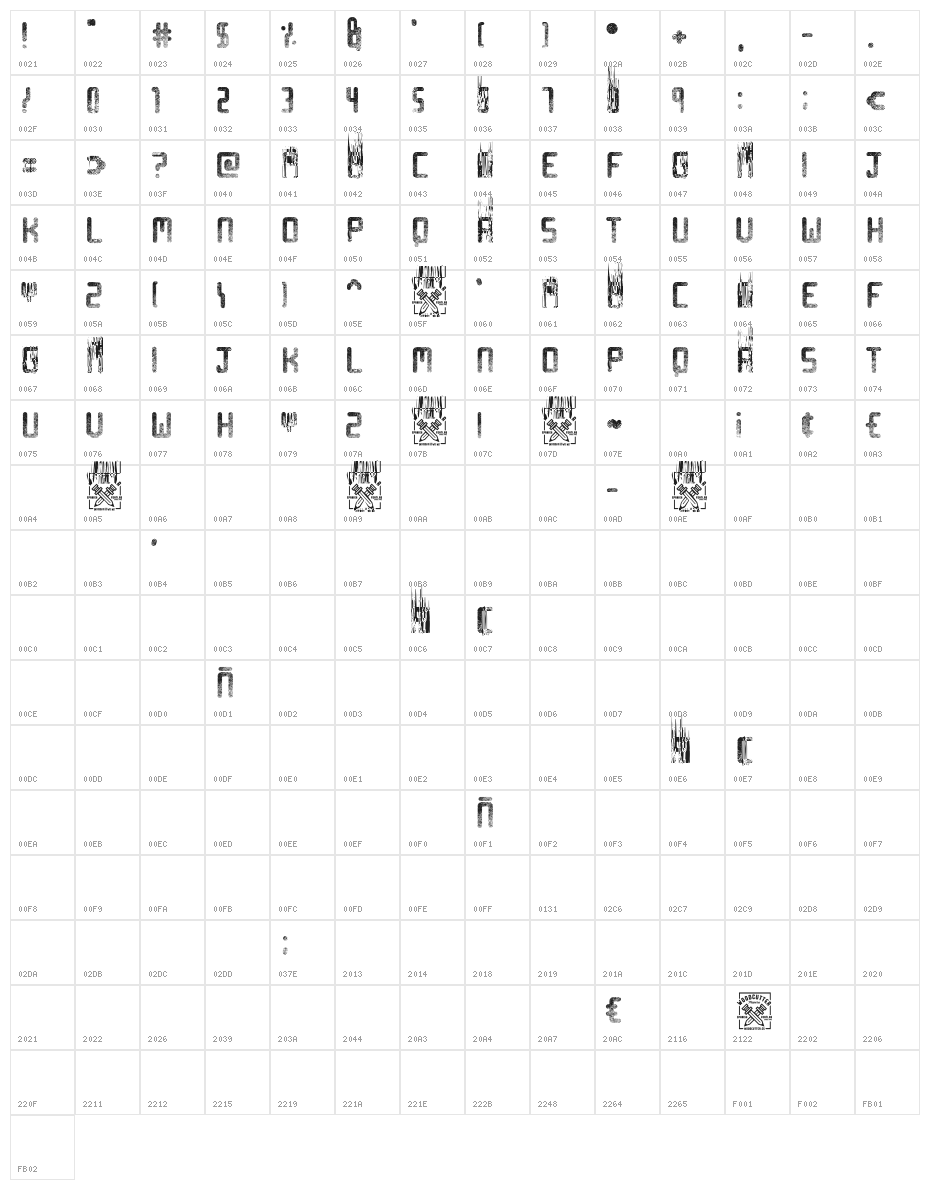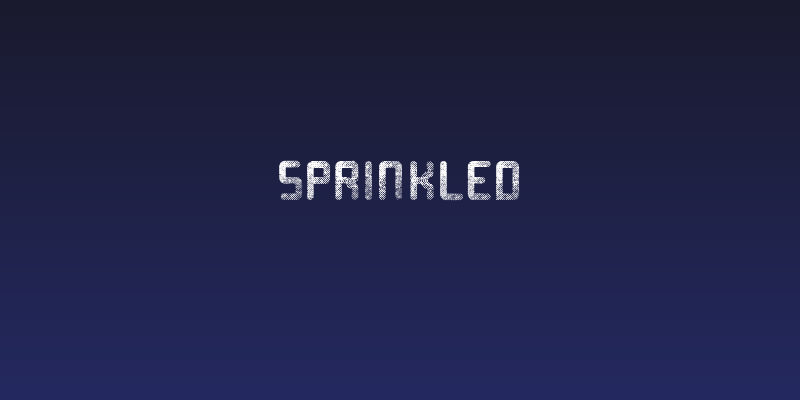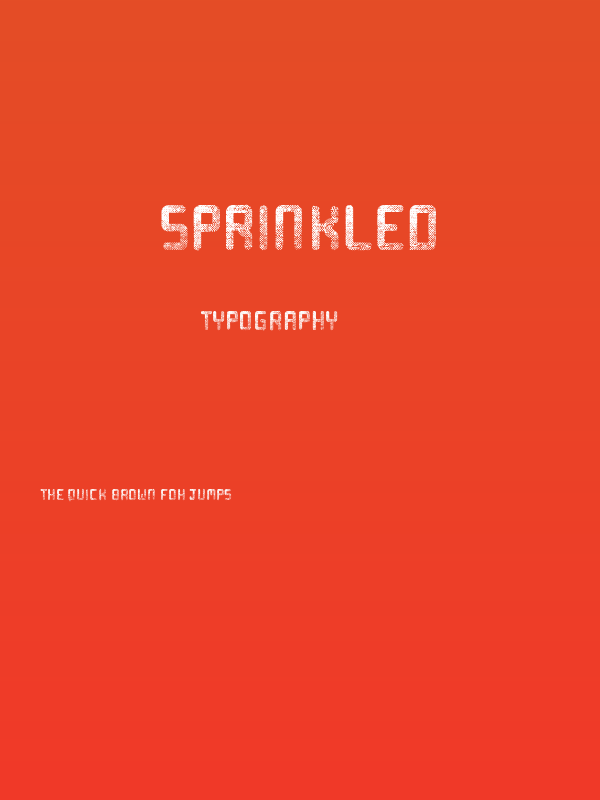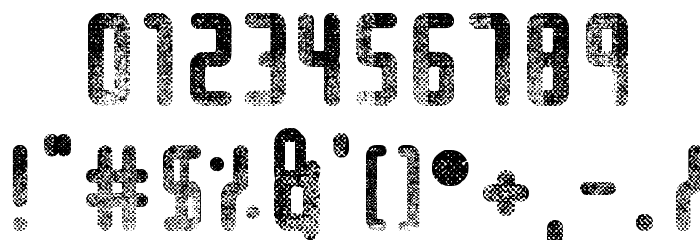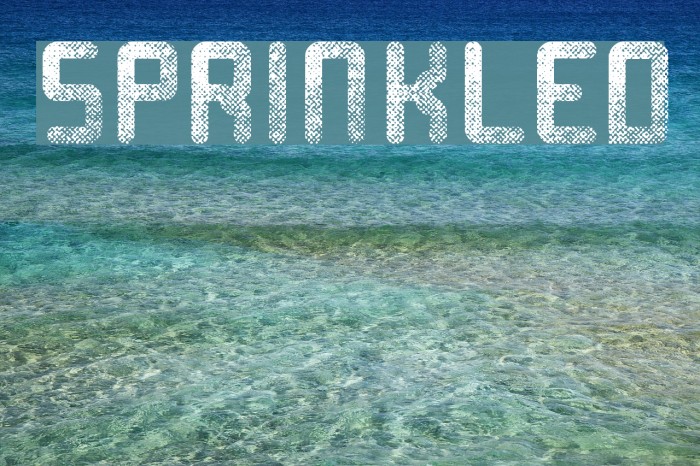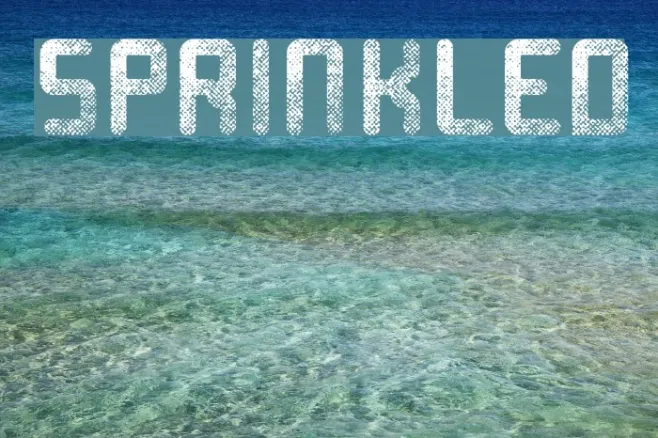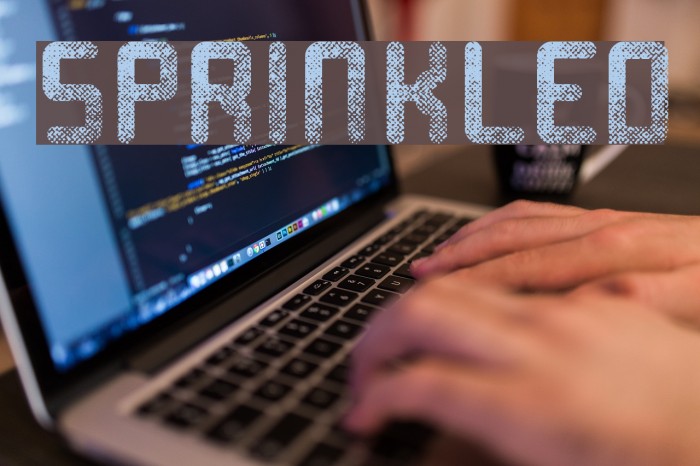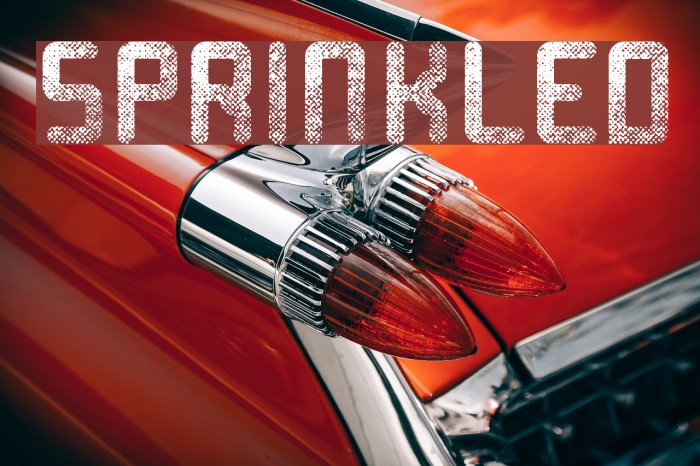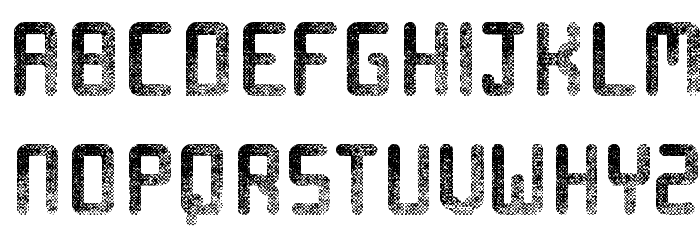
Sprinkled Font
Sprinkled Description
This font features a bold, geometric style with a unique textured pattern that resembles a sprinkling effect. The characters are uniformly structured, maintaining a consistent height and width, which gives it a modern and industrial feel. The texture adds a layer of depth and visual interest, making it stand out in any design. The uppercase and lowercase letters are clearly defined, and the numerals are distinct and easy to read. Special characters are included, maintaining the same textured style, which ensures a cohesive look across different types of content.
SPRINKLED UPPERCASE
SPRINKLED LOWERCASE
SPRINKLED OTHER CHARS
| Proposed Projects | This font is perfect for projects that require a bold statement, such as posters, branding, and packaging. Its unique texture makes it suitable for artistic and creative designs, while its readability ensures it can be used in headlines and titles. |